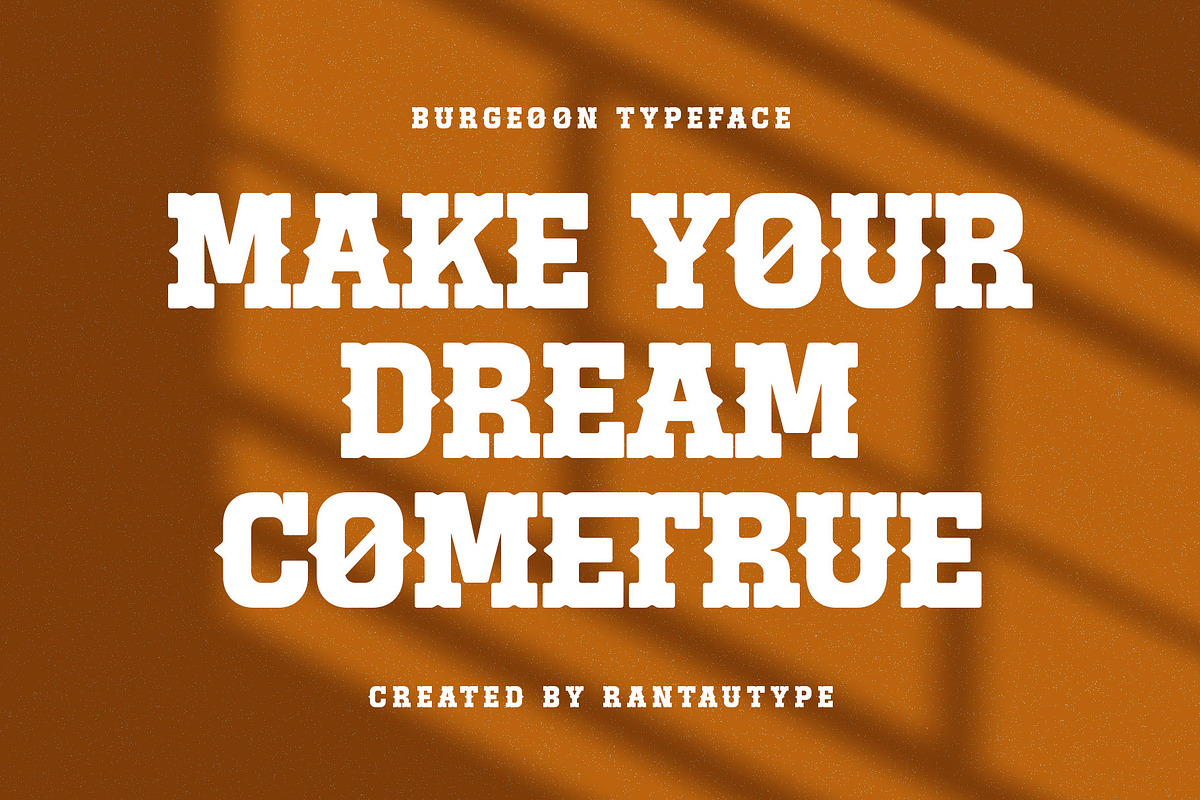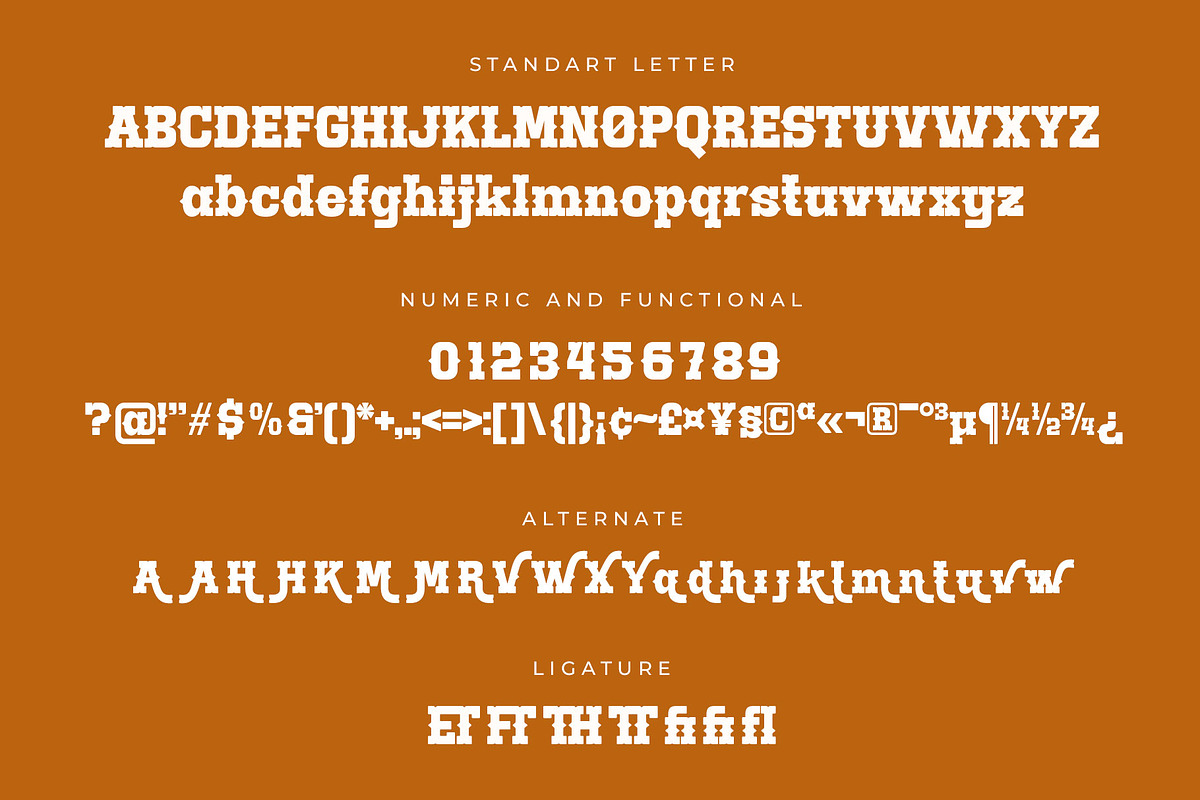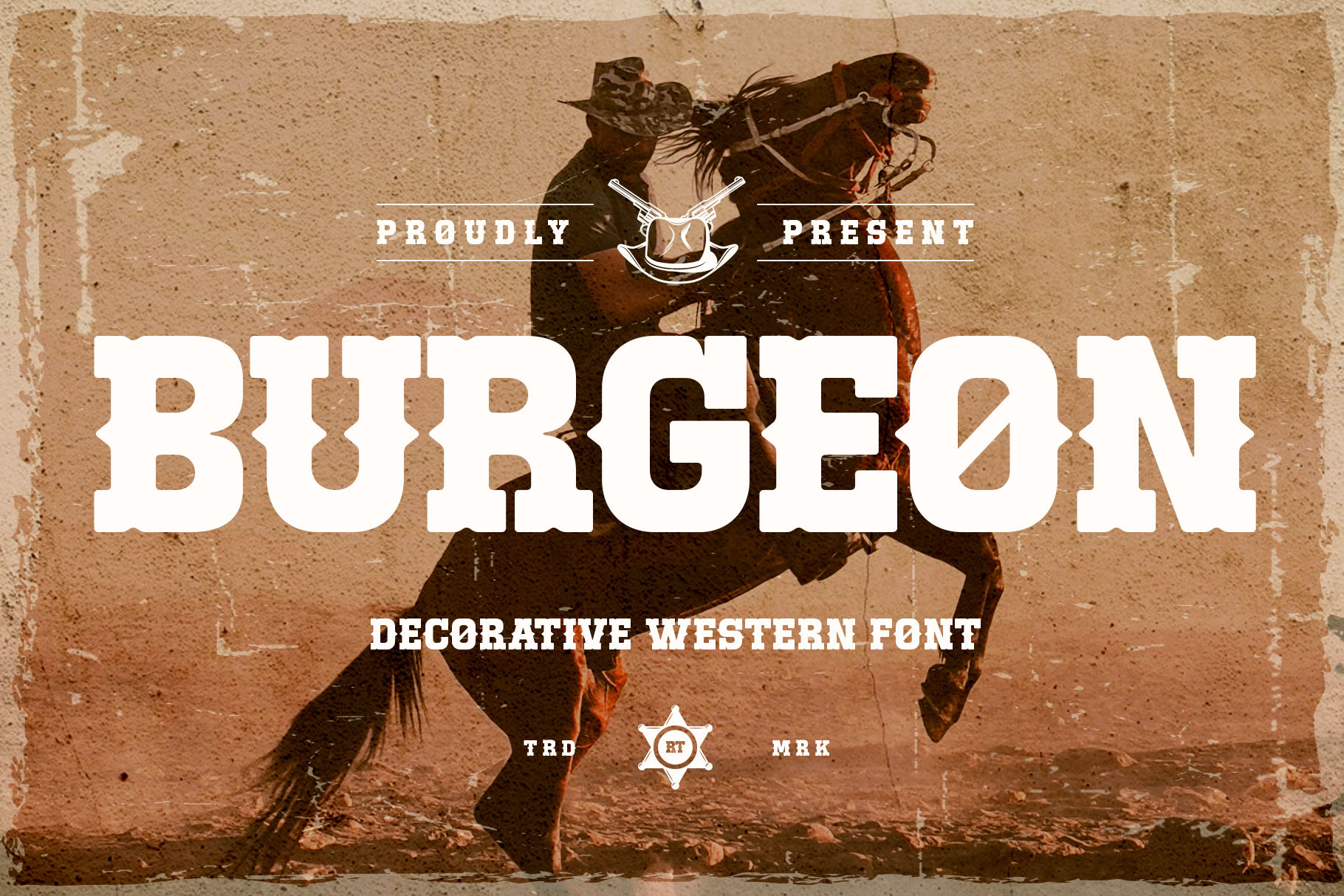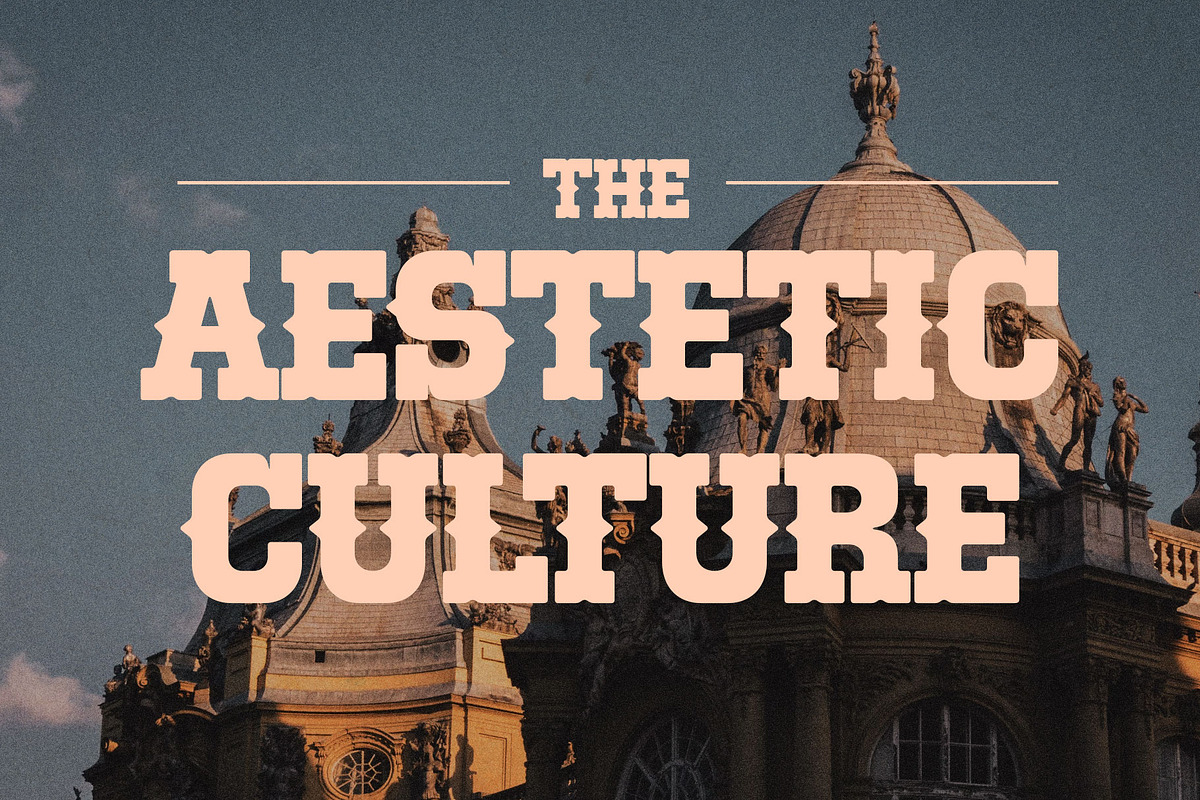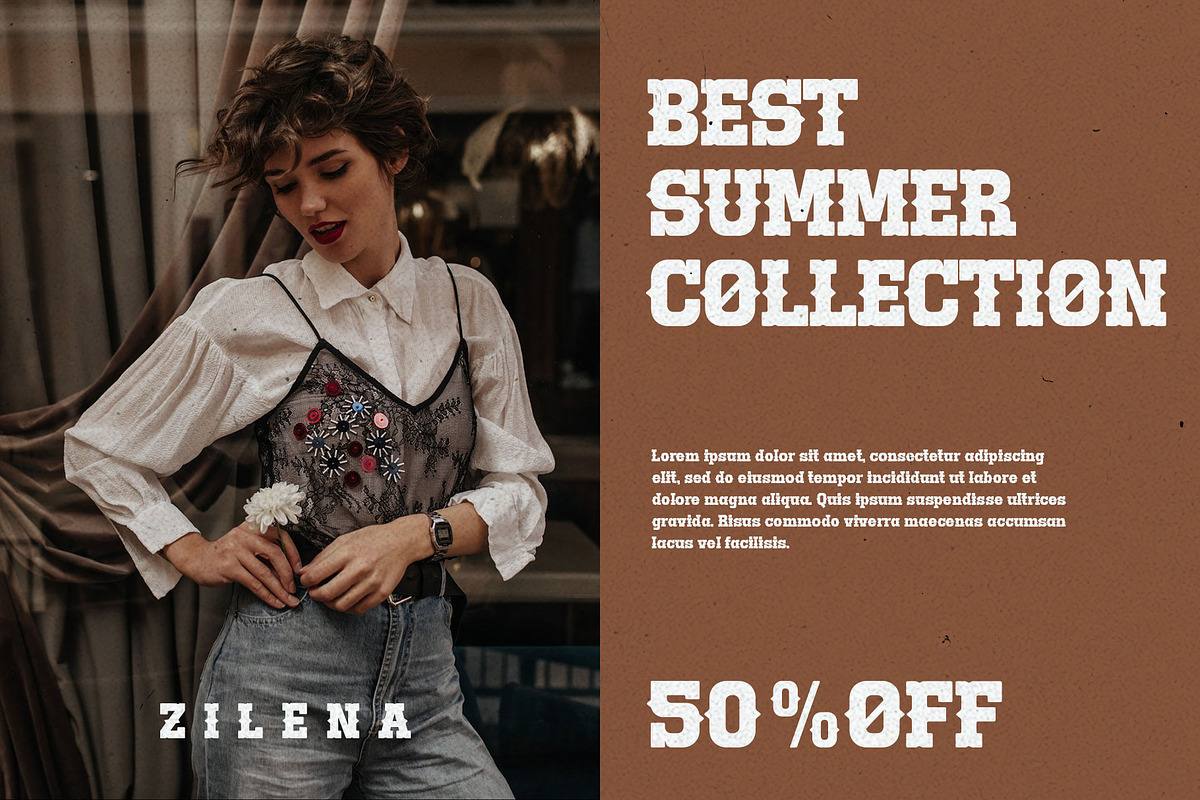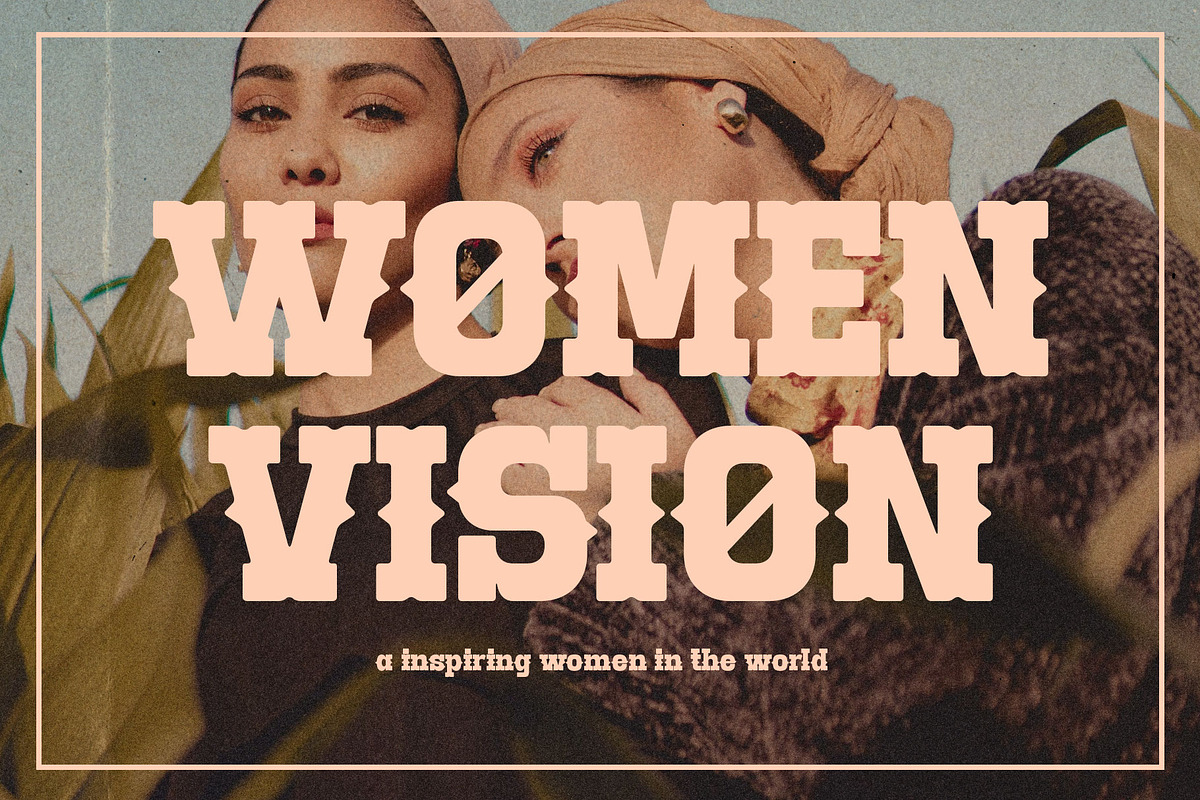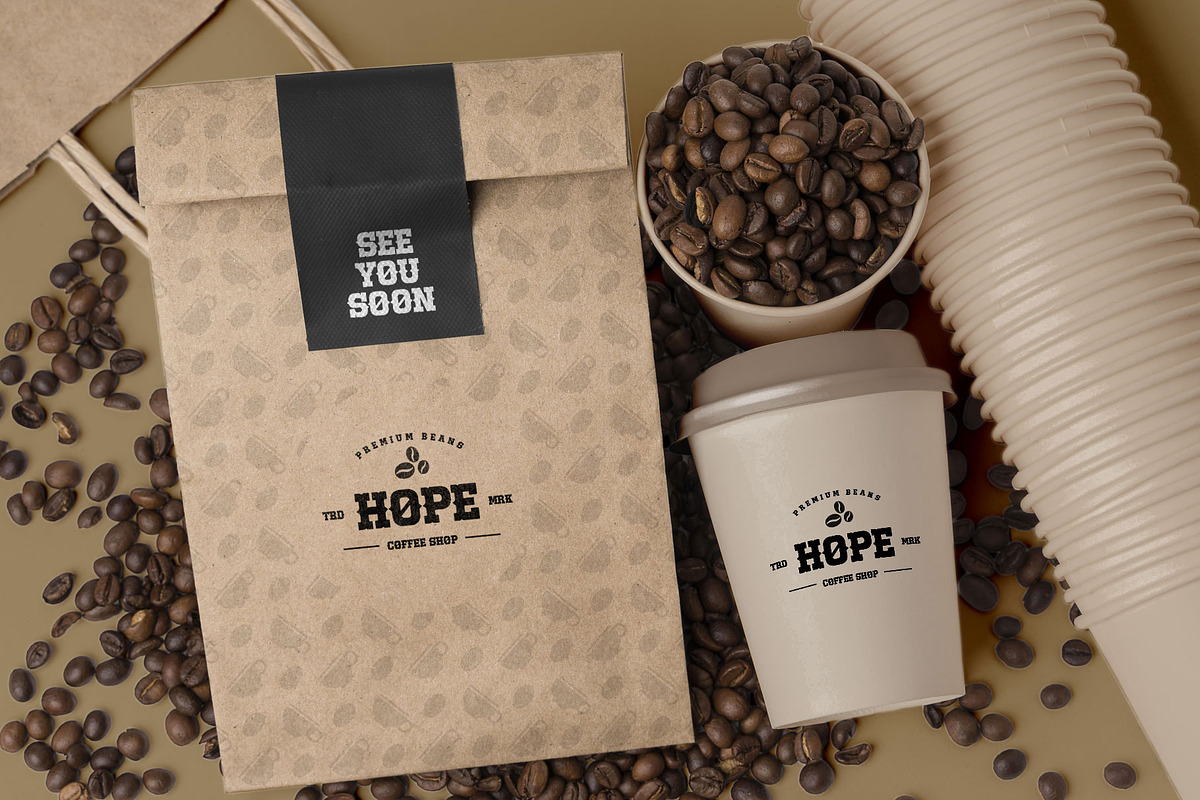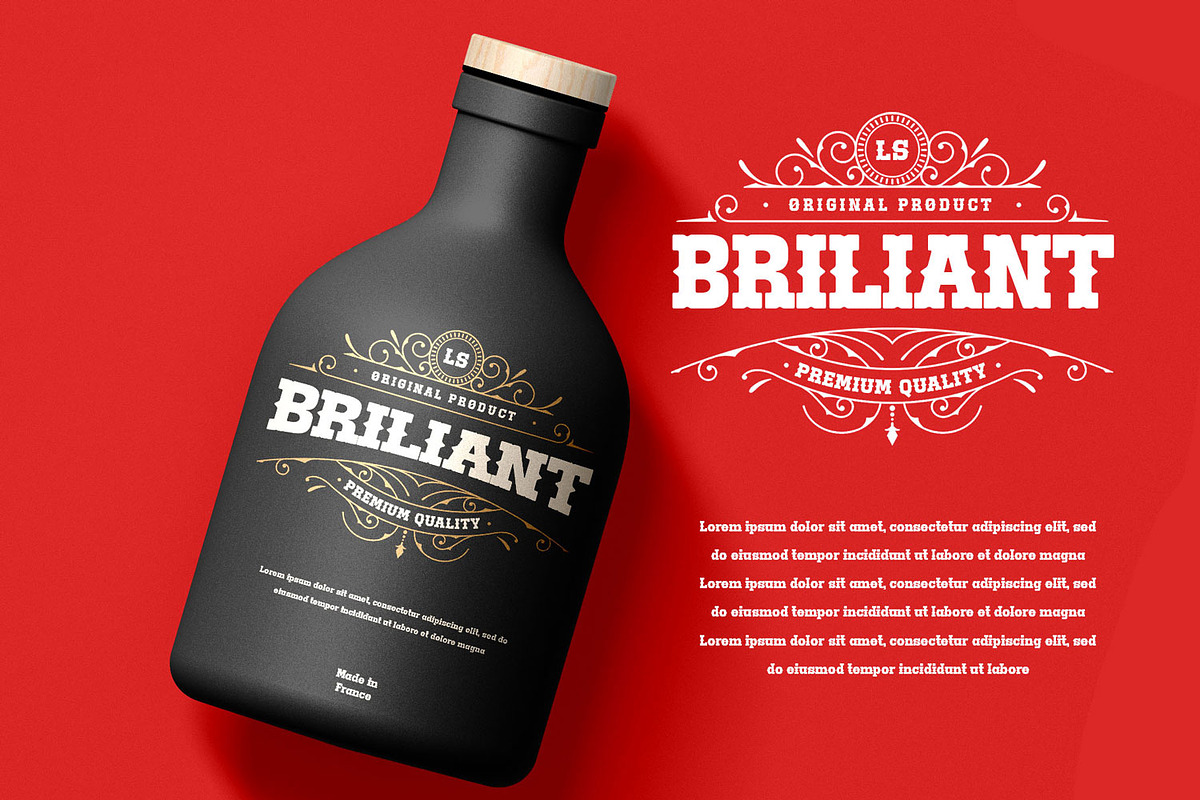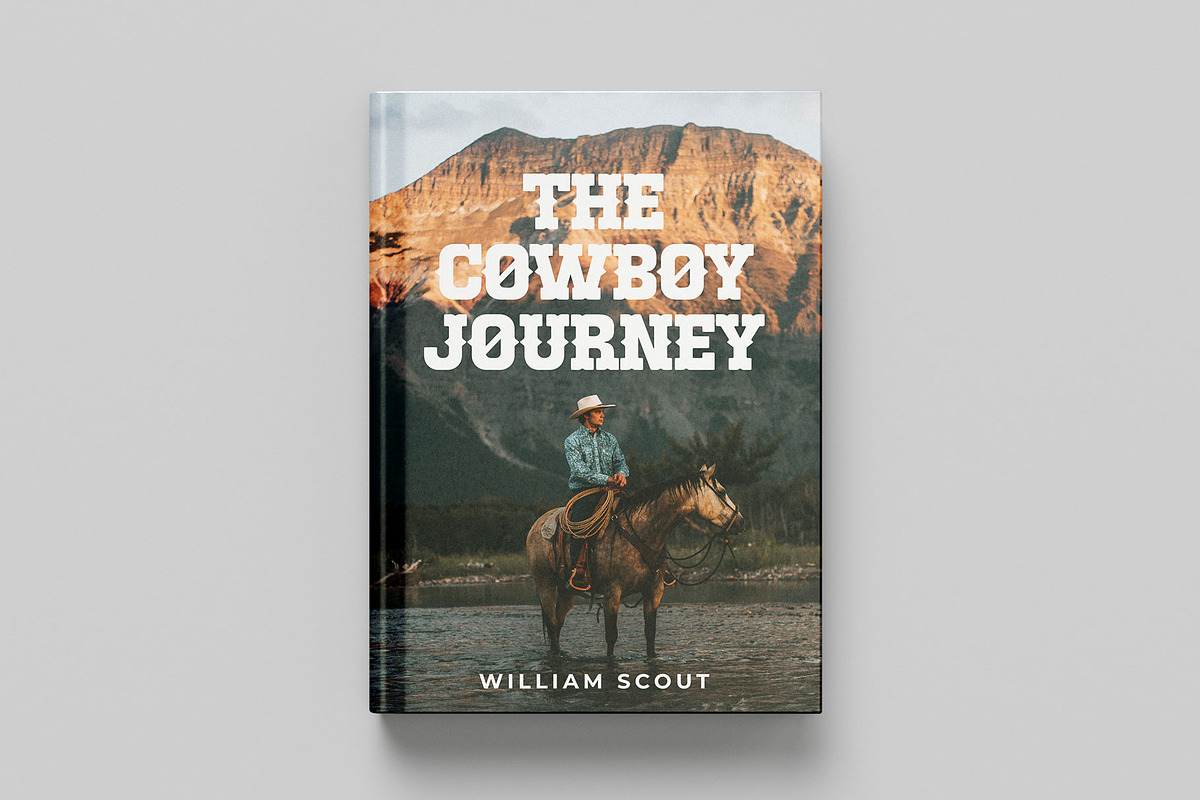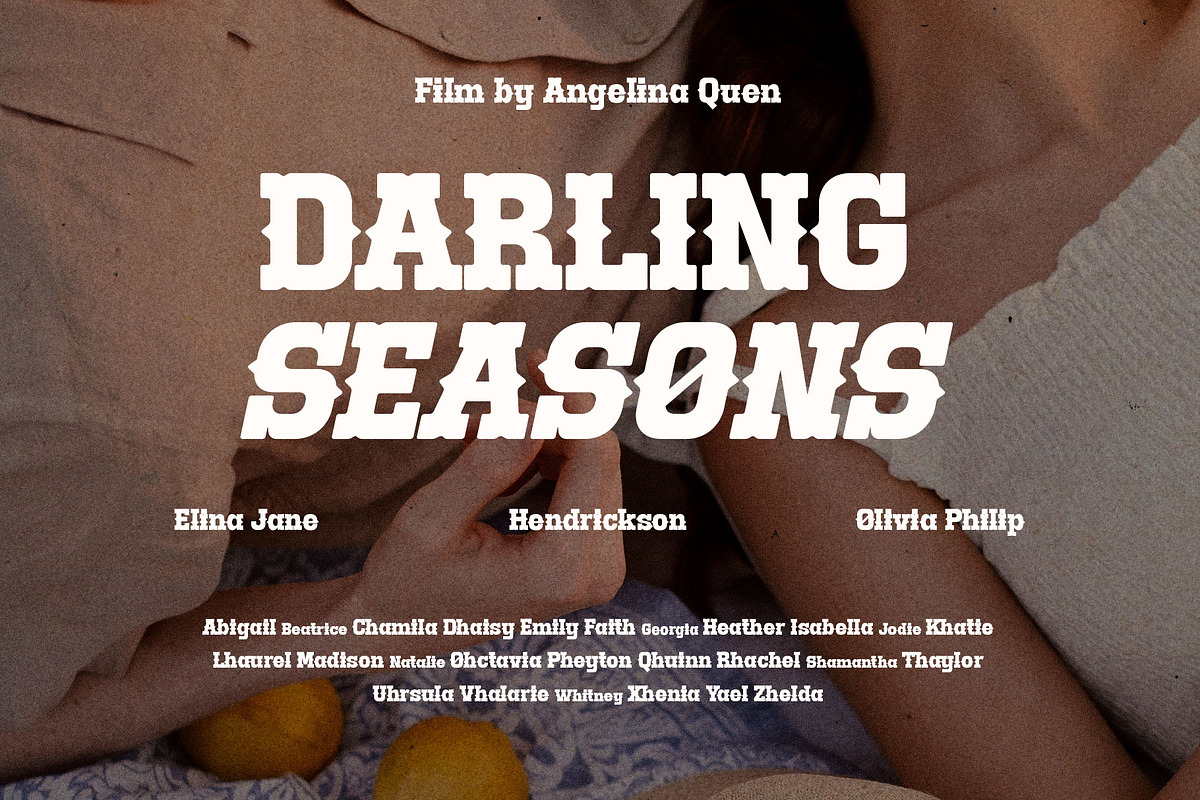
Burgeon Decorative Western font
Hi Ladies and Gentleman ! Proudly present Burgeon Decorative Western Display font by rantautype.
Burgeon is beautiful display typeface inspired by midcentury southwestern type we keep this font look retro but modern. Burgeon display come with more alternate and ligature to make it more option design. This font can be use for retro and modern design. Burgeon display support dozens of languages which use the Latin and Greek alphabets.
Burgeon separate in reguler and italic, is a beautiful choice for any creative endeavor, creating fun, modern, chic, lifestyle design such as logos, title, cover, branding, display and magazine, and more. Now you have more choice when using Burgeon to make amazing design.
- Standar character A-Z and a-z
- Alternate and Ligature